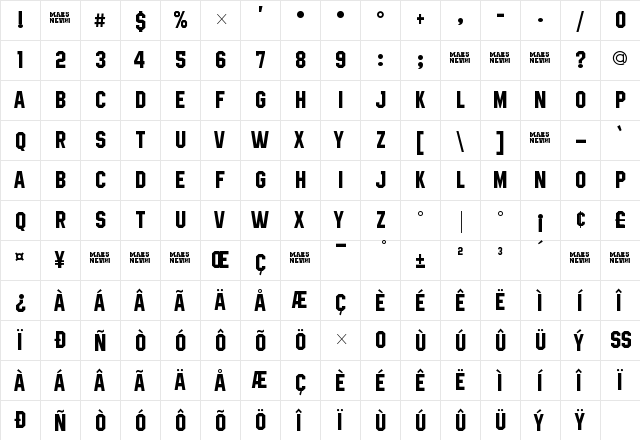
High Jakarta Regular
Design Context for High Jakarta Typeface
High Jakarta takes a measured approach to typography — its balanced proportions and neutral character make it a reliable workhorse for both digital and print work.